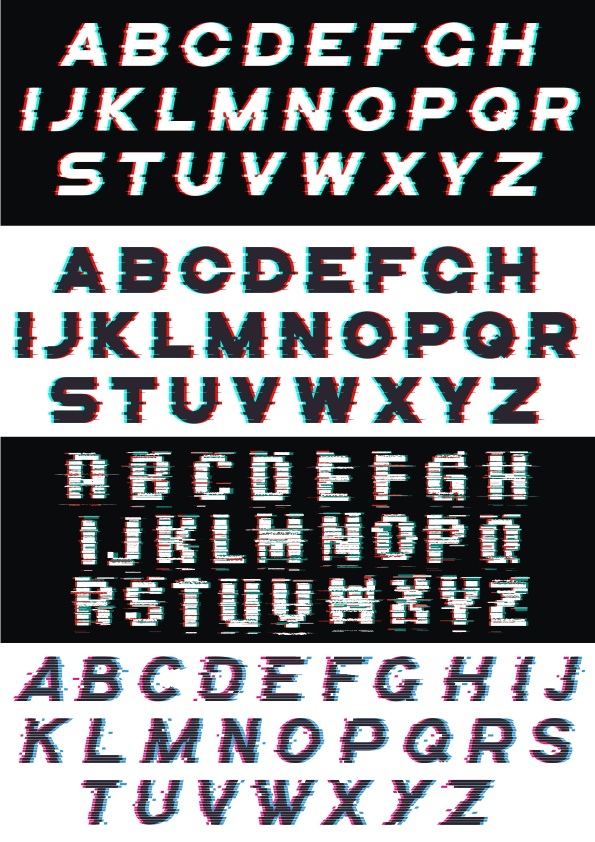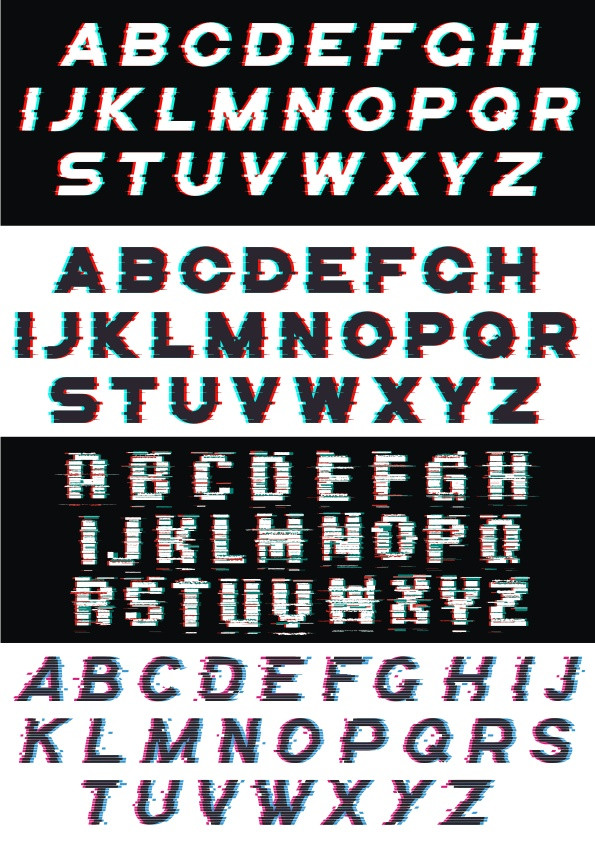
Glitch Effect Alphabet Fonts Set Free Vector
Four sets of uppercase alphabet letters featuring various glitch and distortion effects. Includes bold, italicized, and pixelated glitch styles in contrasting colors for digital or cyberpunk themed design projects.